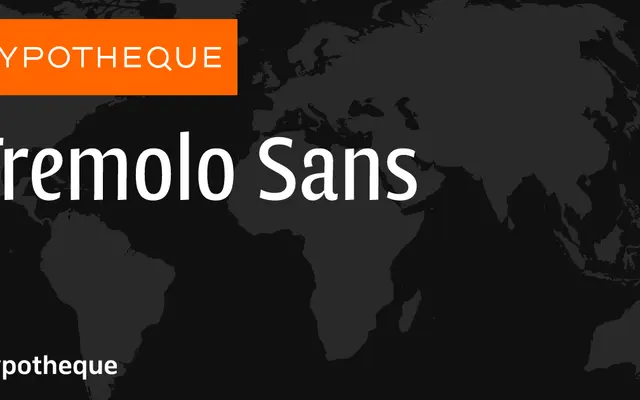
Tremolo Sans specimen from Typotheque
A large-scale type system from Typotheque pairing a humanist sans across six weights with an elaborate suite of display, stencil, shadow and gradient layering variants.
The family runs from Thin to Bold with optical Text cuts and matching italics throughout, forming the workhorse core. Above that sits a rich layering apparatus: Display and Display Stencil variants join Shadow and Gradient subfamilies each divided into component layers (Top, Bottom, A, B, C) designed to be stacked for composite typographic effects. Named weights reference cities from Amsterdam to Luxembourg, giving the family a distinctive identity.
Tremolo Sans is a humanist sans-serif with a broad weight range from Thin to Bold, featuring optical size variants (Text) and an extensive layering system with display, stencil, shadow and gradient subfamilies.